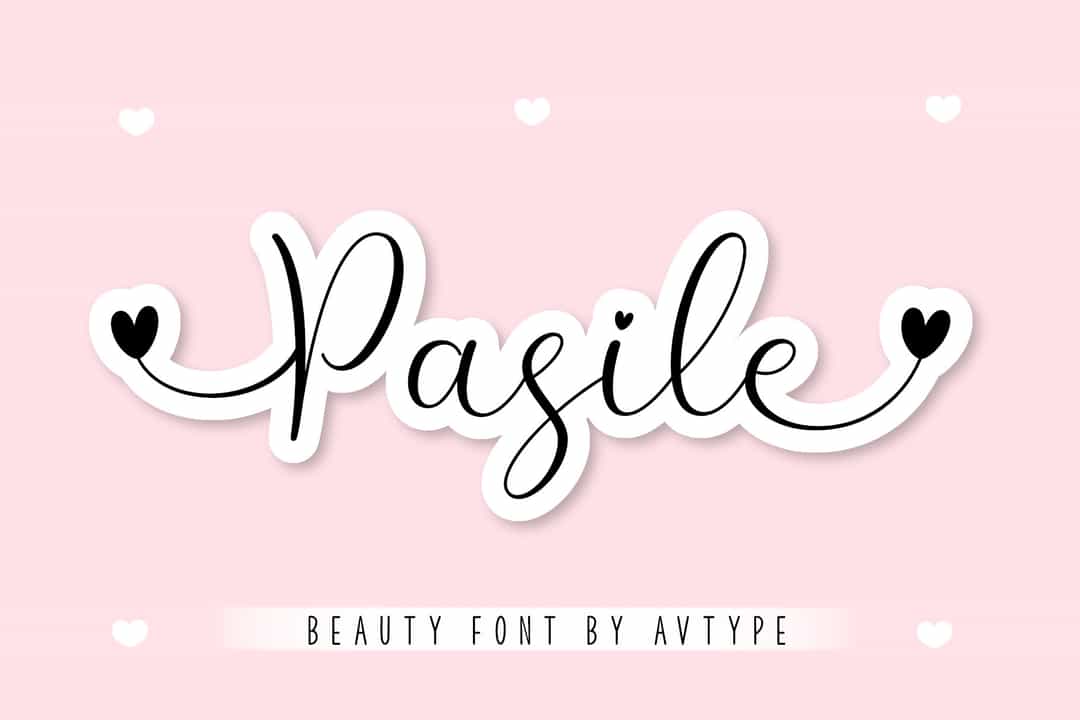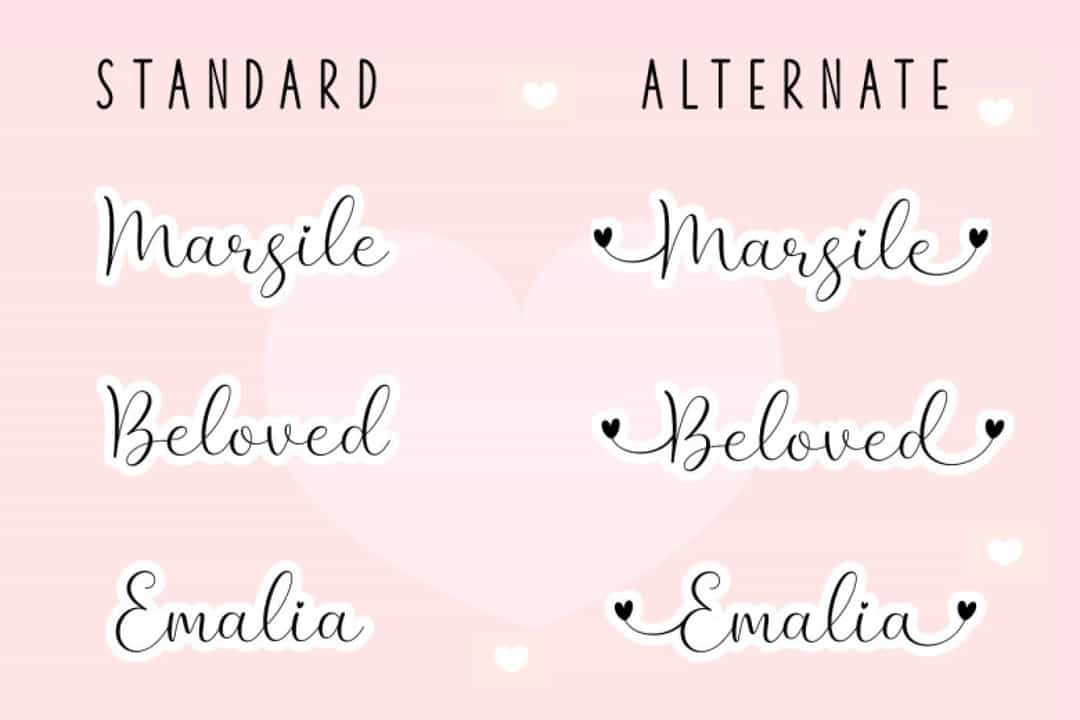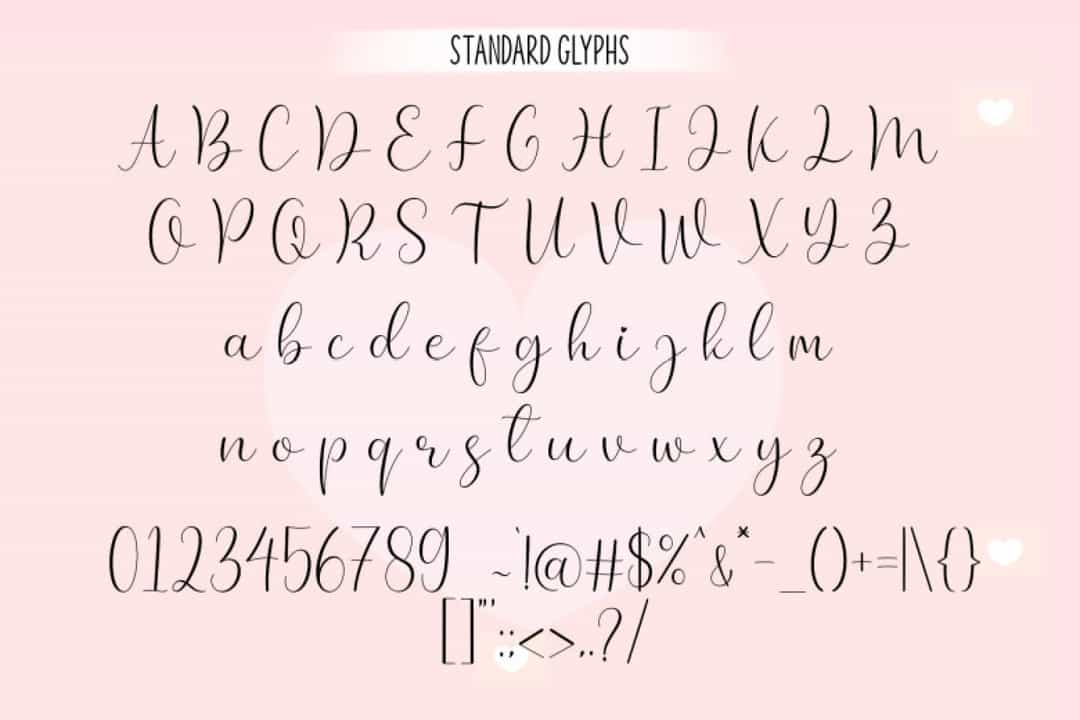
Pasileis an elegant script typeface with feminine characteristics and features beautiful letters with long tails featuring an extended heart at their end. Pasile is a display font which makes it an excellent choice for logos, posters, wedding announcements, other accessories headline quotes and much more.